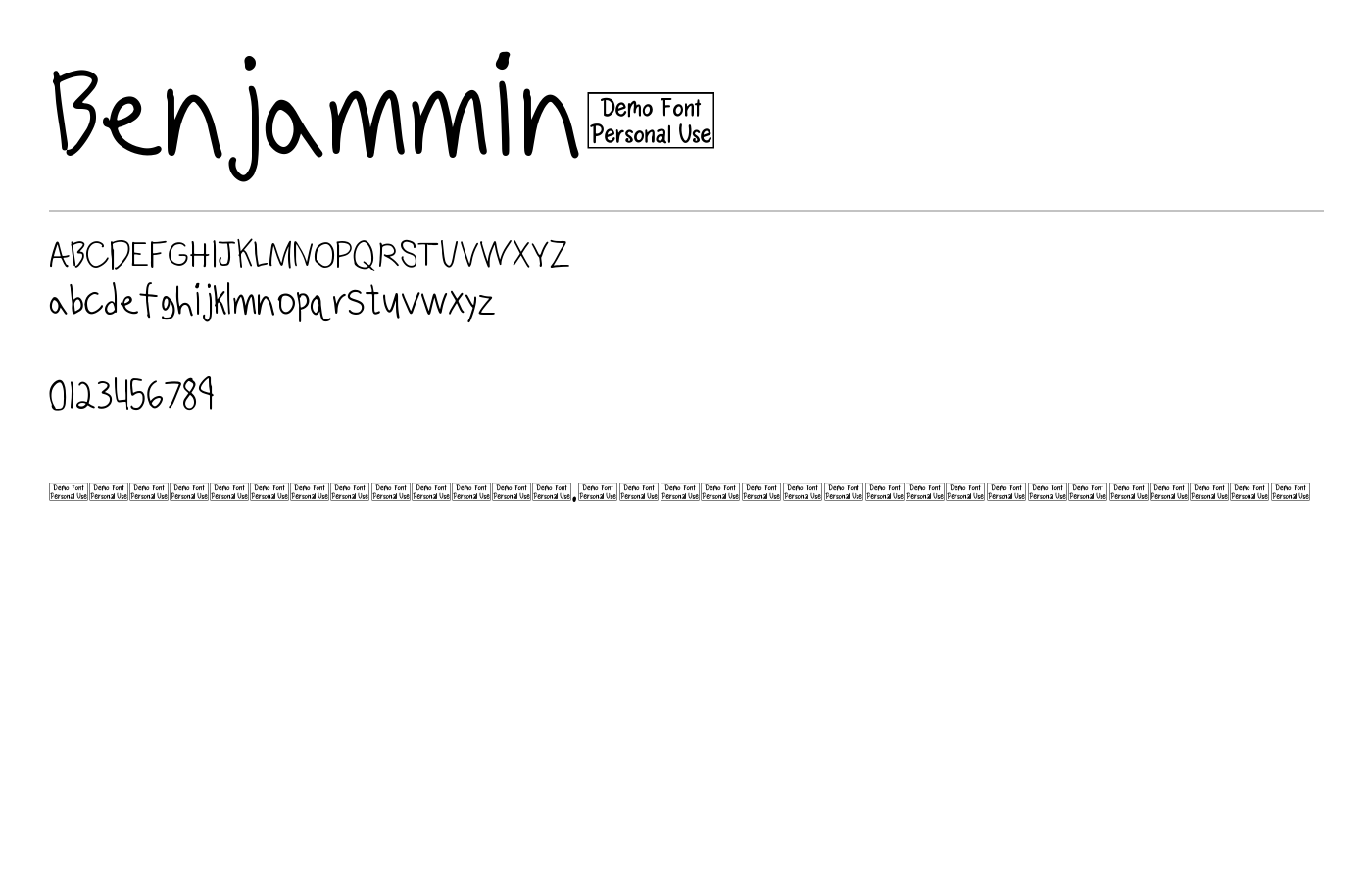
Benjammin' is a playful, hand-drawn sans serif font with a casual and friendly vibe. Its irregular, thin strokes and tall, narrow letterforms give it a light, approachable feel, perfect for informal and creative projects like children's books, crafts, or personal branding. This font works best in headlines or short texts where a warm, handwritten touch is desired.
Benjammin' Font